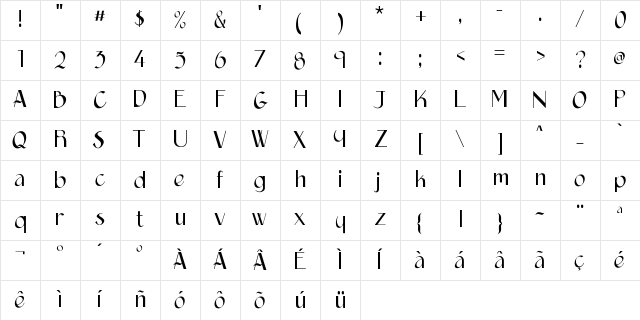
Epittazio Regular
Design Context for Epittazio Typeface
Epittazio offers clean, dependable letterforms without strong stylistic allegiance, making it a practical choice for designers who need flexibility.
Pro Tip: Use Epittazio in both headline and body roles to test its range before committing to a single application.